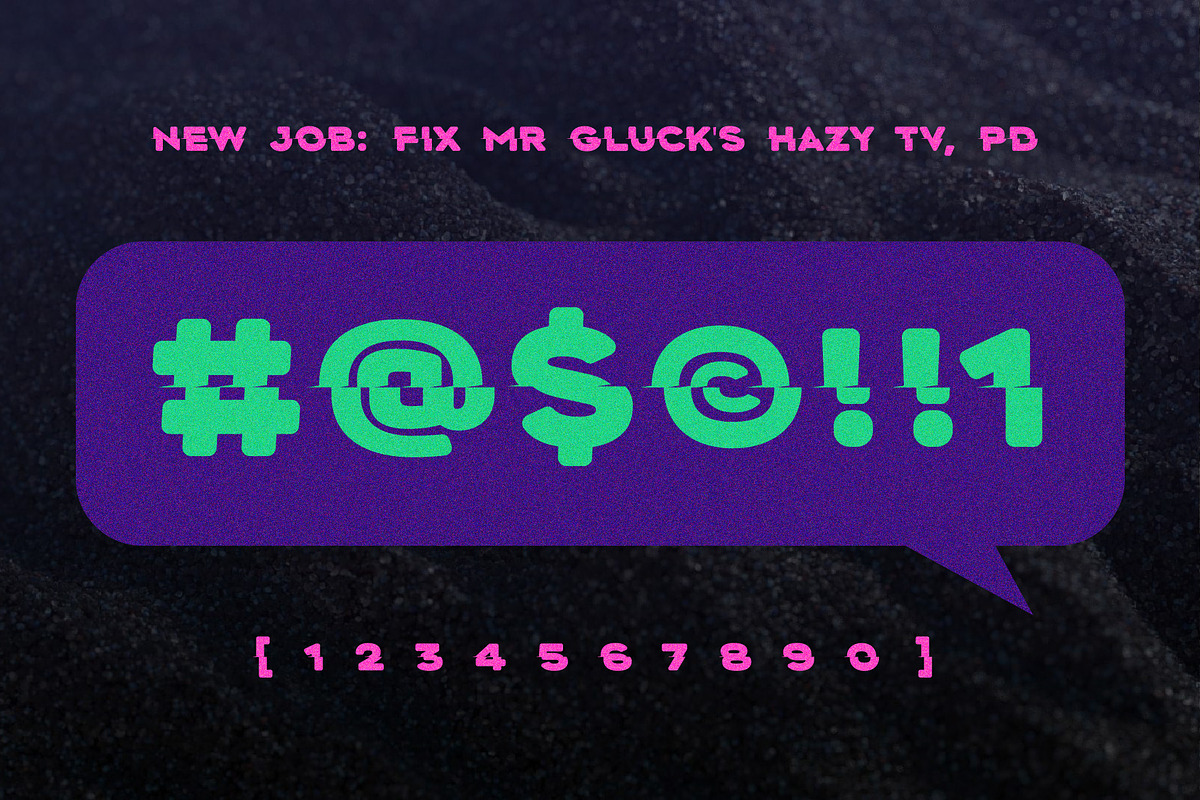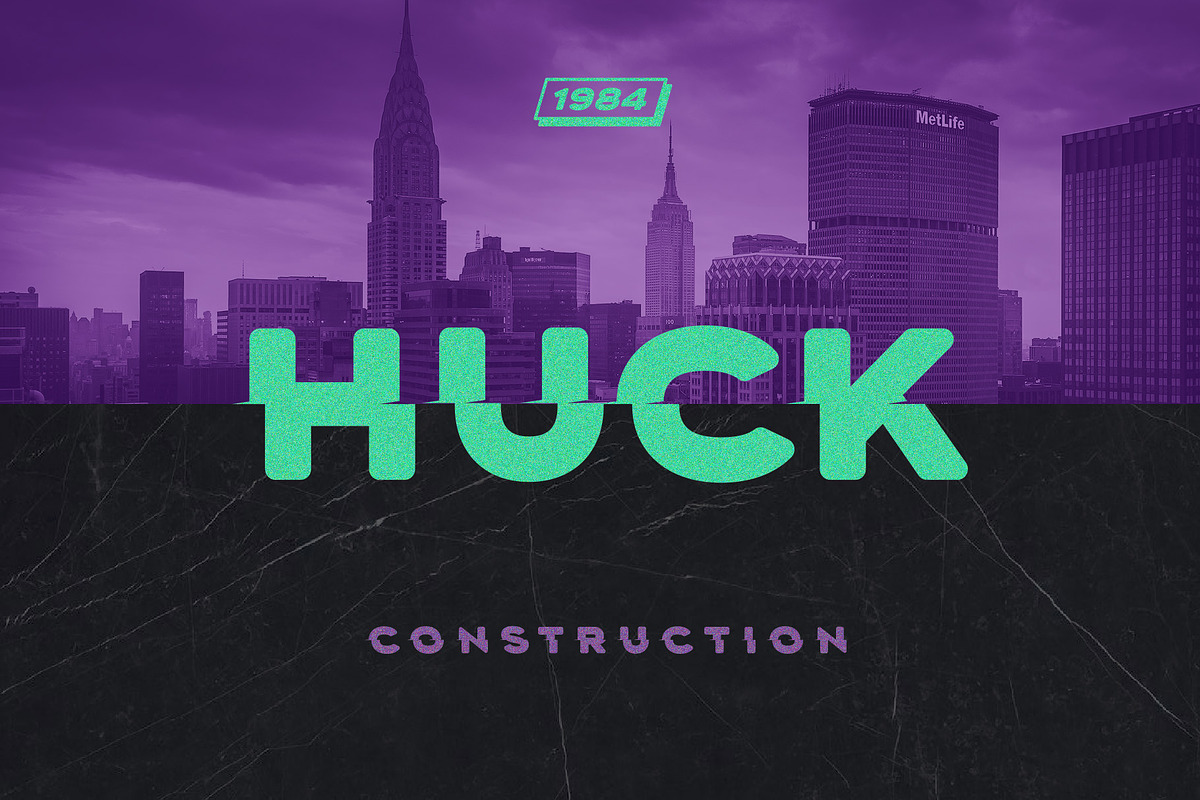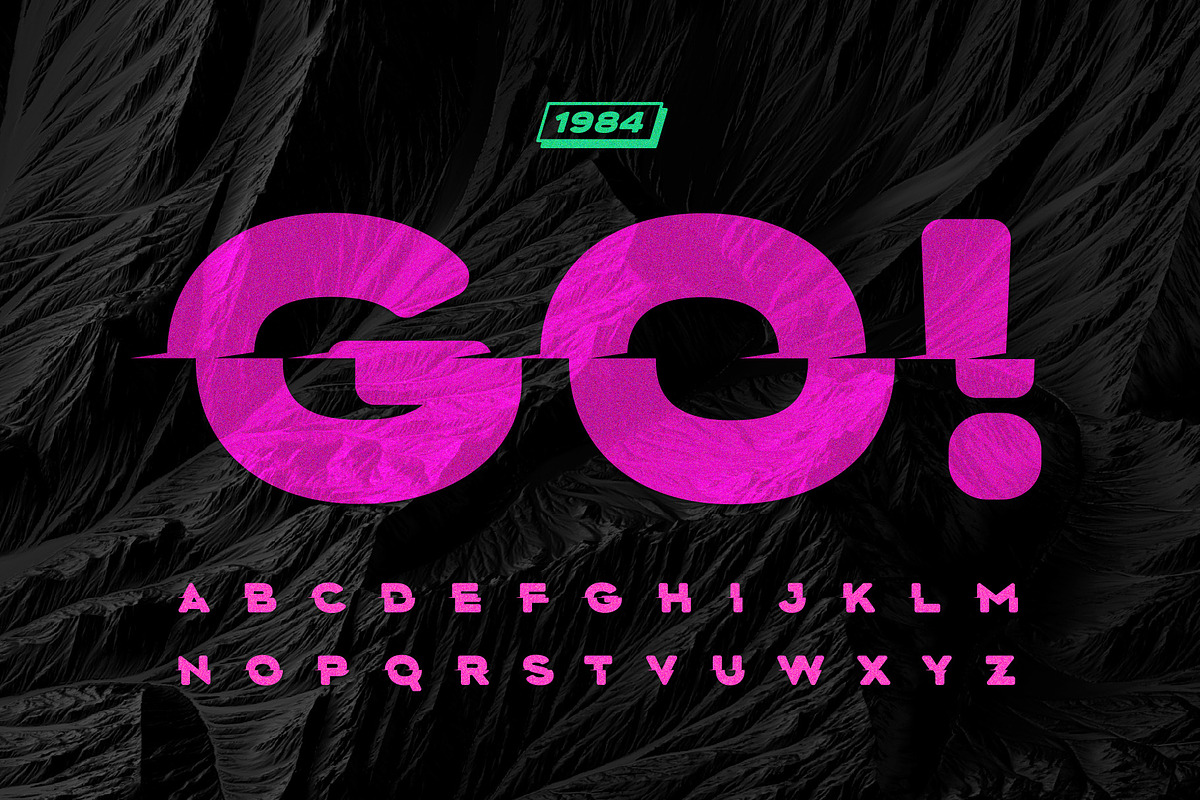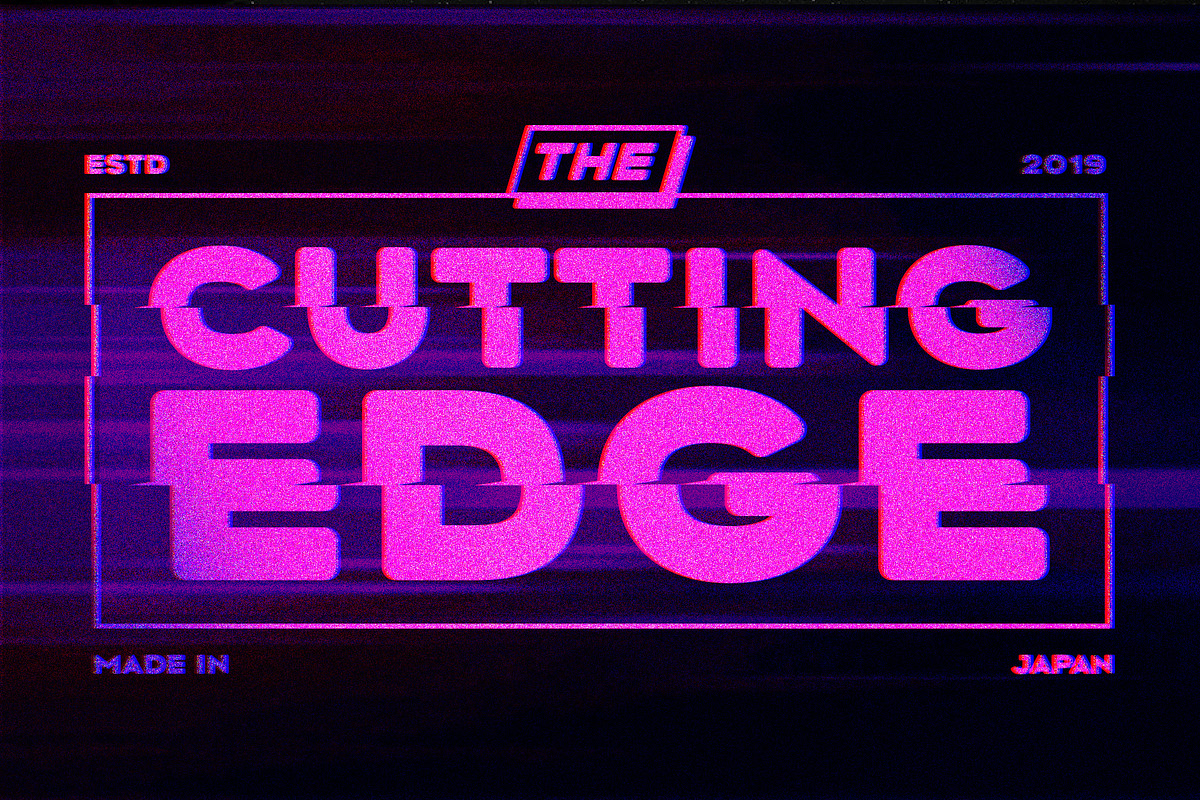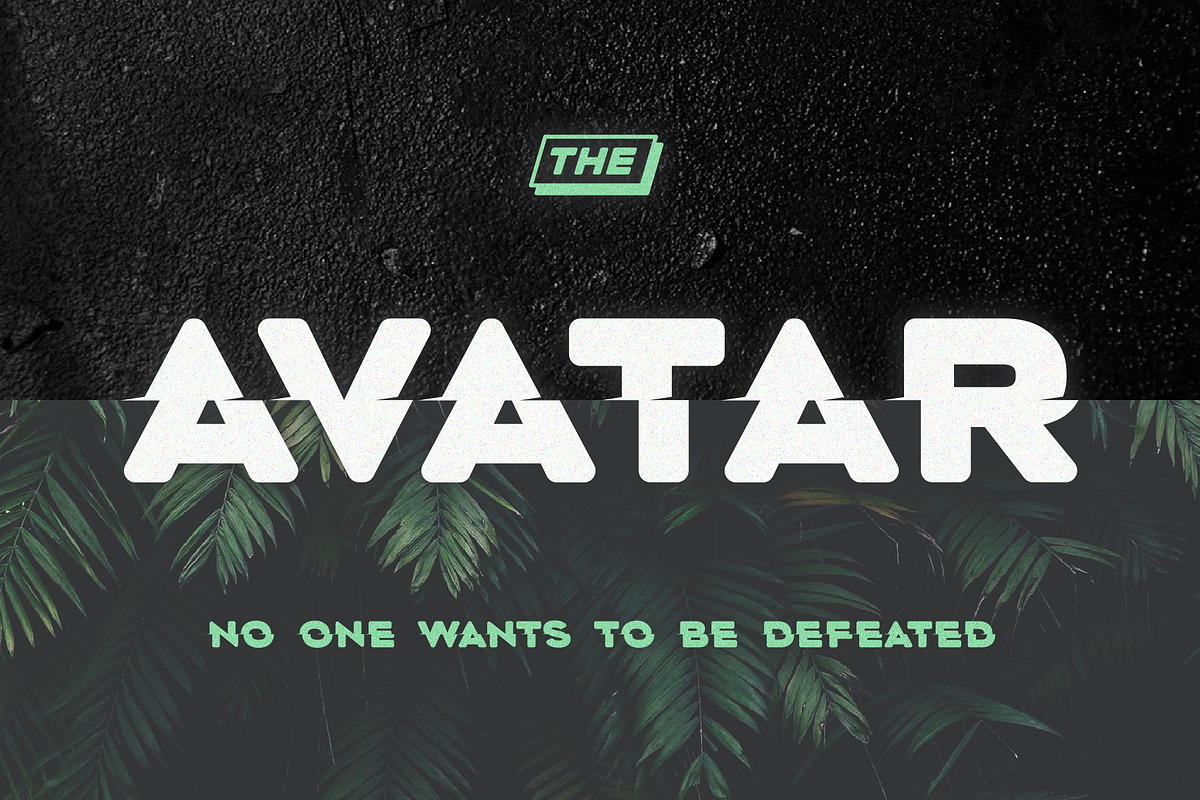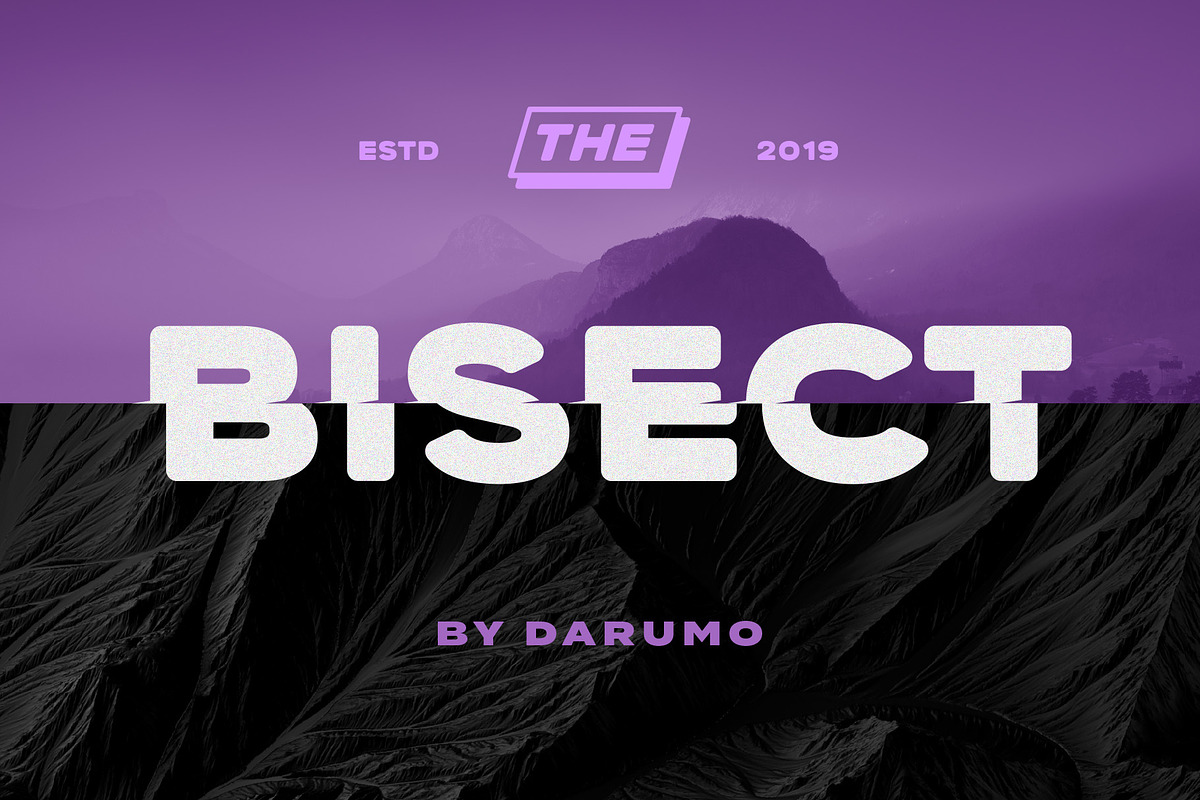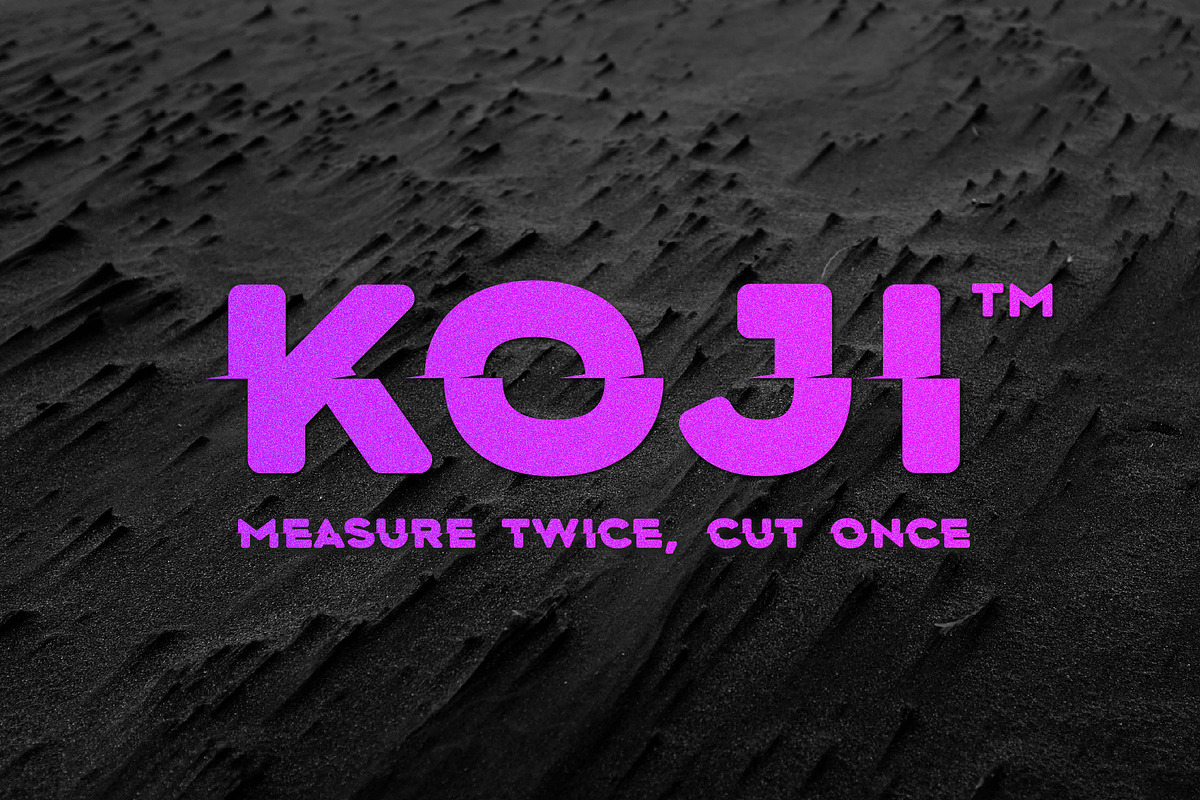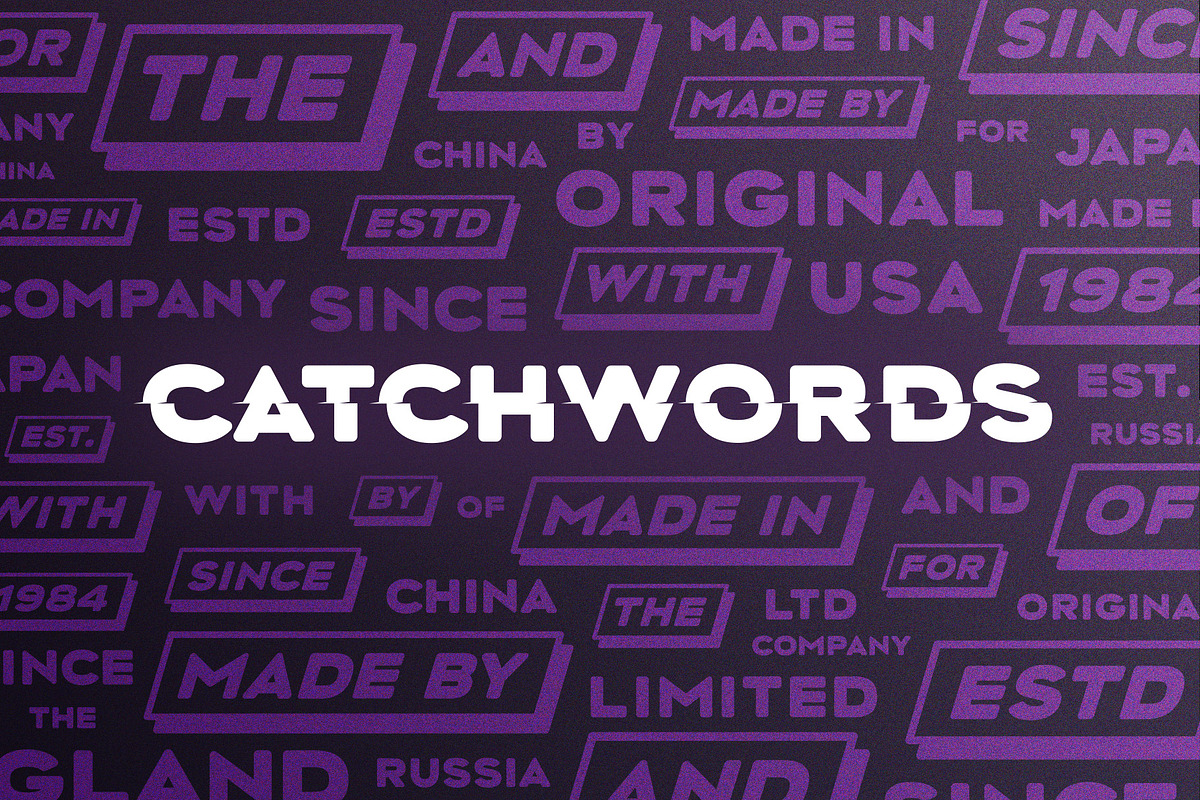
Bisect Font
Introducing BISECT, a horizontally shifted font. Perfect for headers (especially for the big ones), can be also used for text blocks. This powerful typeface will be a perfect choice if you want your designs exuded dynamic, energy and audacity. This font was created especially for the MEGA SYSTEM vector graphic pack. But you can use it separately for your amazing designs.
Bisect Font by Darumo Shop fits naturally into Branding, posters, packaging, typography.